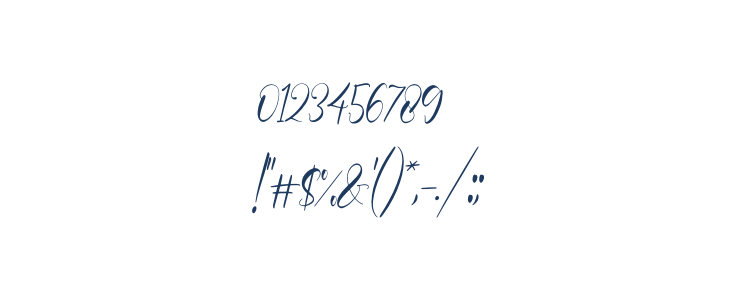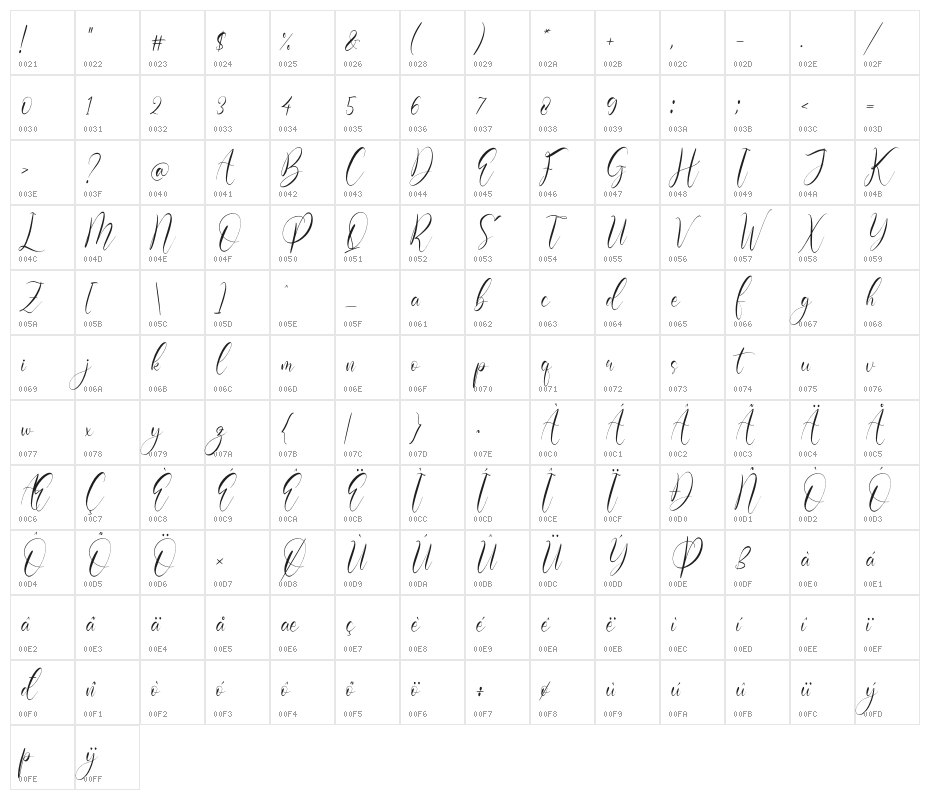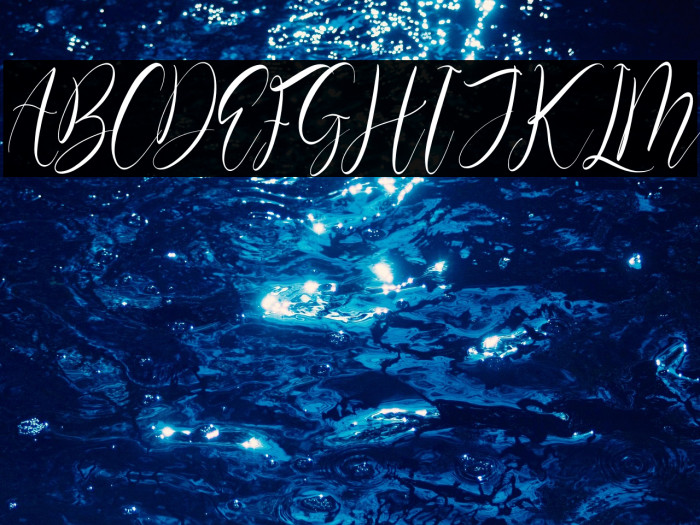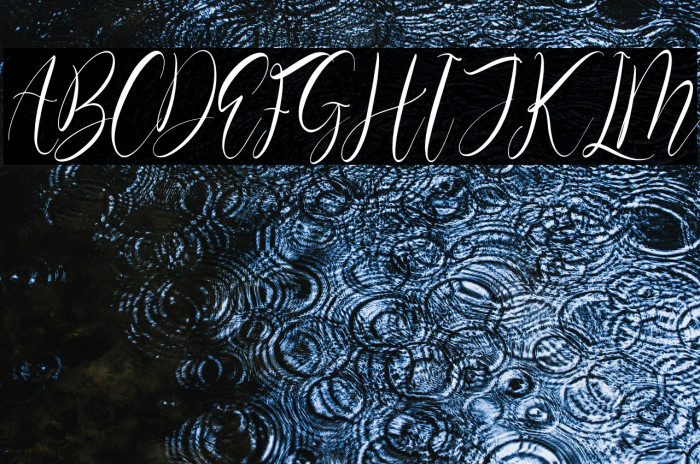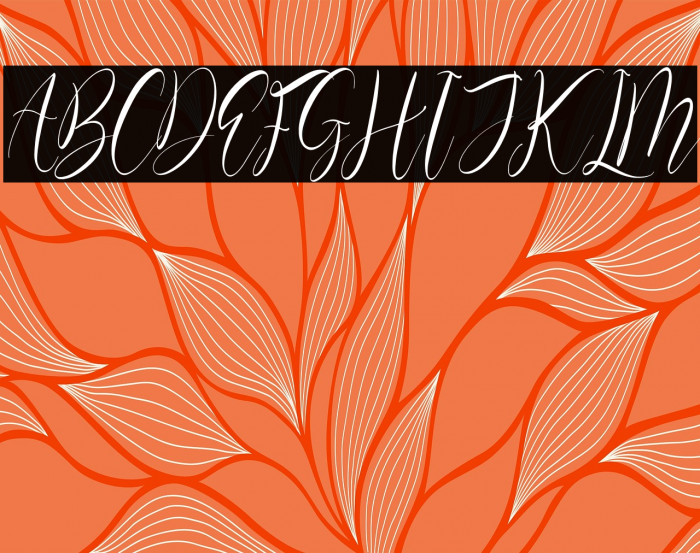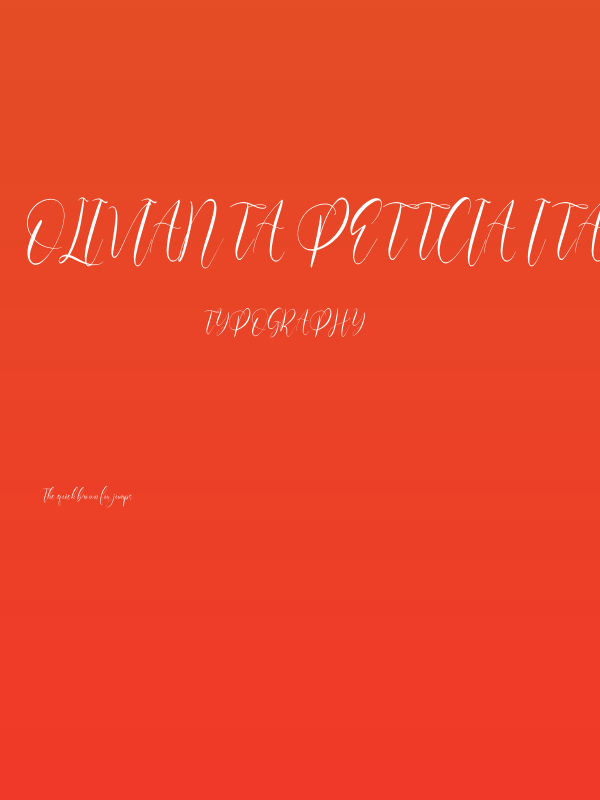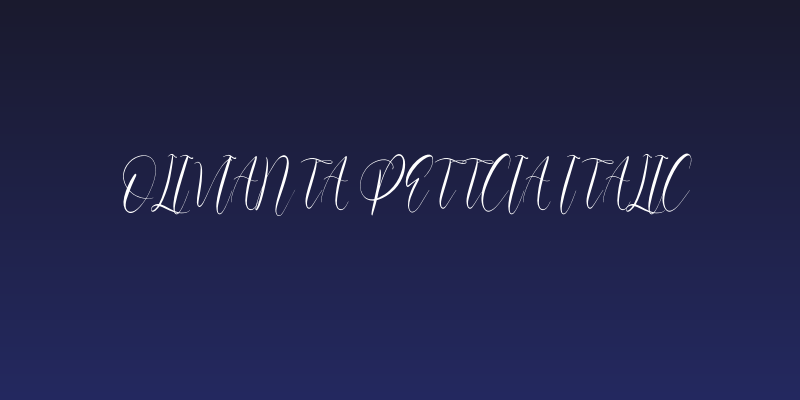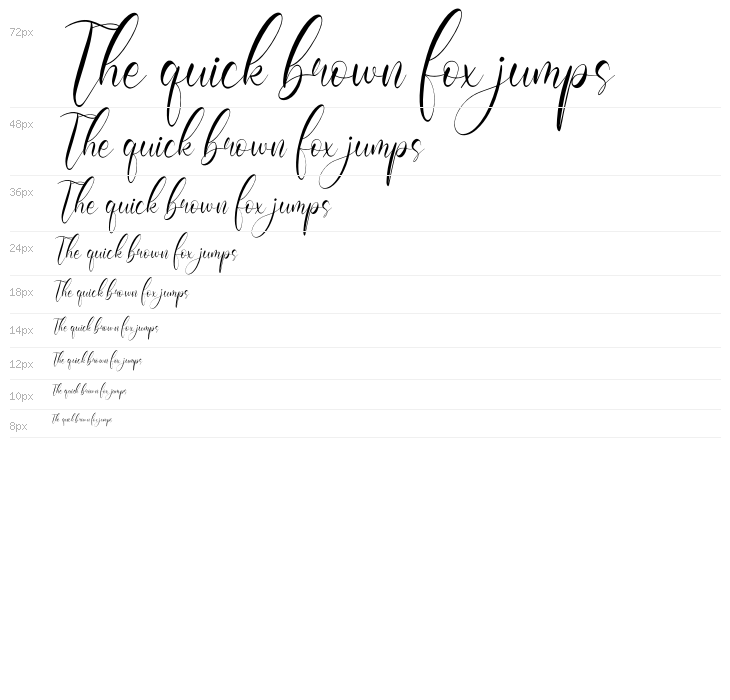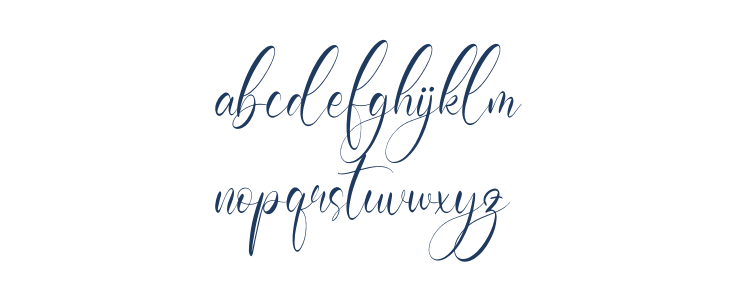
Olivianta Pettcia Italic Font
Olivianta Pettcia Italic Description
This font exudes elegance and sophistication with its flowing, cursive style. The letters are intricately designed with high contrast between thick and thin strokes, giving it a dynamic and graceful appearance. The uppercase letters are particularly ornate, featuring sweeping curves and loops that add a touch of luxury. The lowercase letters maintain a consistent style, complementing the uppercase with their own delicate flourishes. The numerals are equally stylish, maintaining the font's overall aesthetic. Special characters are thoughtfully integrated, ensuring versatility in various design contexts.
| Overall Style | Elegant, Decorative |
| Proposed Projects | Ideal for wedding invitations, luxury branding, elegant packaging, and high-end editorial design. |